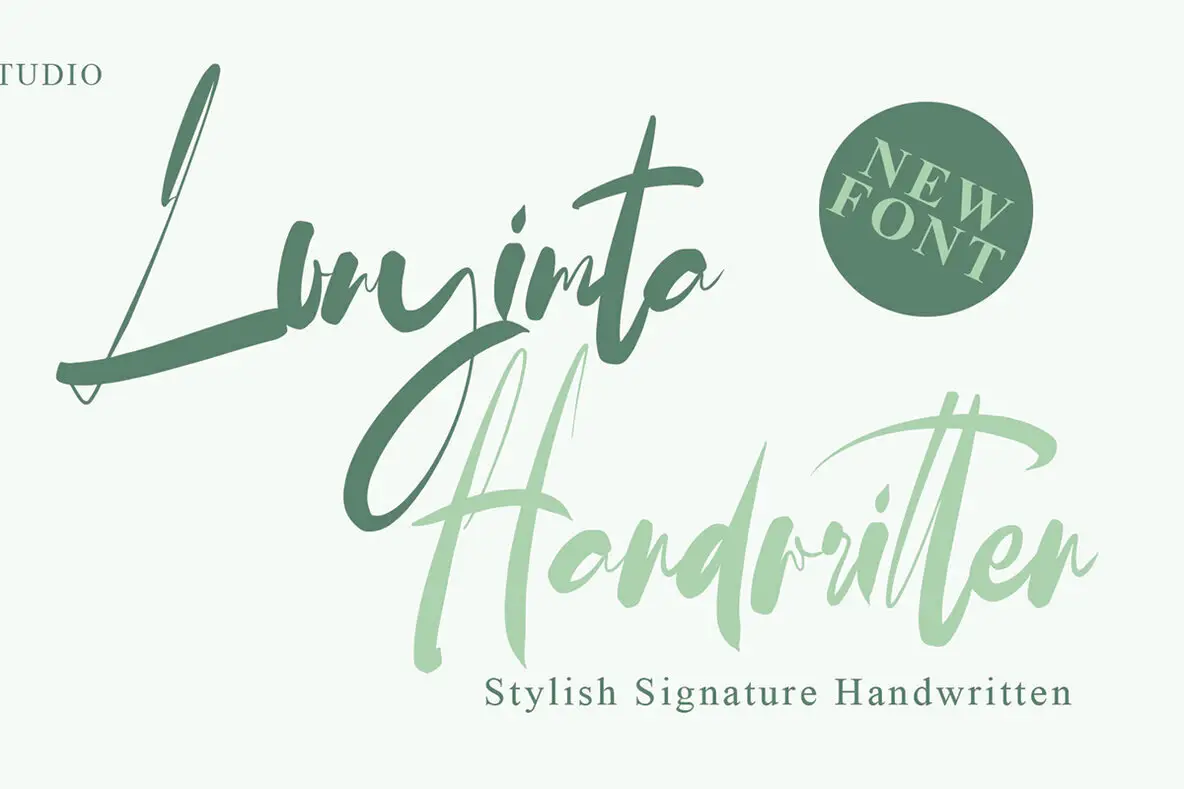
Louyimtta Font
Louyimtta
Louyimtta brings a fresh style to type design, offering a modern look that adapts to a wide range of creative projects. Its distinctive character makes it suitable for quotes, logo designs, blog headers, posters, branding, and invitations. The unique flair of Louyimtta adds personality and visual appeal to stationery and letter projects, lending each piece a professional edge.Louyimtta: A Versatile Font for Every Creative Project